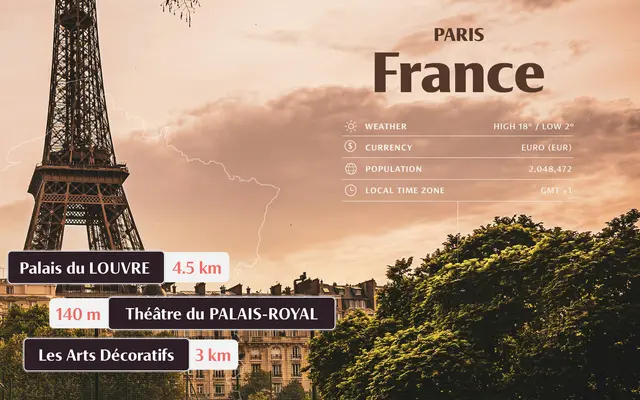
Skeena Display
Tiro Typeworks · John Hudson
A display serif by John Hudson in eight static styles and two variable font cuts, covering an extended Latin glyph set of 471 characters.
Designed by John Hudson with assistance from Paul Hanslow, this display serif runs from Regular to Bold with matching italics across eight static styles. Two variable font versions, roman and italic, offer continuous weight interpolation on the same axis. The extended Latin character set and broad diacritic coverage suit multilingual editorial and high-profile print work.
Described specifically as a display variant, suggesting refined contrast and optical tuning for large-scale use; the serif construction and weight range align with a display serif classification.